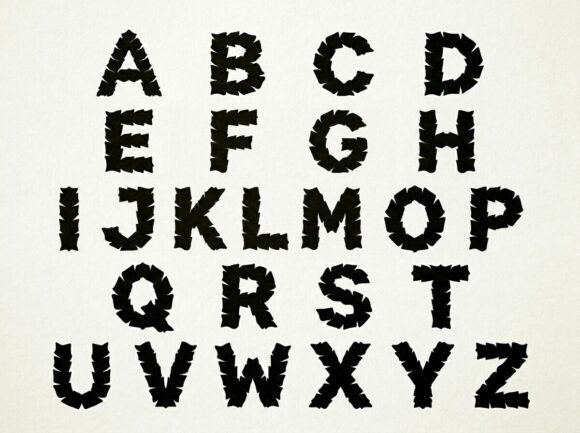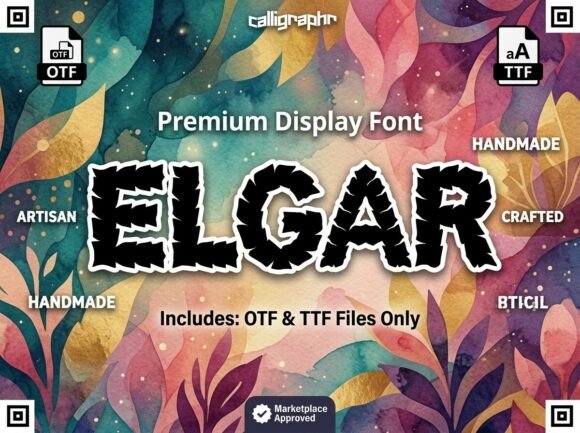
The Elgar Font: A Stunning Decorative Display Font for Creative Minds
Have you ever been working on a design project, pouring your heart and soul into it, only to hit a roadblock when it comes to choosing the perfect font? I know I have. It’s like being stuck on a creative mountain, unable to find the right words to express your vision. But fear not, dear designers, crafters, and creative hobbyists, for today I’m excited to share with you a game-changing font that will elevate your designs to new heights: the Elgar Font.
A Personal Encounter with Elgar
I recall working on a project for a client who wanted a bold, eye-catching logo that would make their brand stand out. I scoured the internet for the perfect font, but nothing seemed quite right. That was until I stumbled upon the Elgar Font. Its unique artistic elements and strong visual personality immediately caught my attention. I knew right then and there that this font was the perfect fit for my client’s project.
An Honest Review of Elgar
So, what makes the Elgar Font so special? Let’s dive into the good stuff:
- ✨ Unique Artistic Elements: The Elgar Font boasts stunning decorative elements that will make your designs pop.
- ✅ Professional and Polished Finish: Despite its bold and artistic nature, the Elgar Font maintains a professional and polished finish, making it perfect for a wide range of design applications.
- 💥 Versatility: This font is versatile enough for bold headlines, artistic logos, and creative packaging.
Now, let’s talk about a few quirks:
- ⚠️ ALL-CAPS Only: The Elgar Font is an ALL-CAPS display typeface, which means it doesn’t include lowercase letters. This might take some getting used to, but trust me, it’s worth it.
- 🤔 Glyphs and Alternates: While the Elgar Font is stunning on its own, its true potential is unlocked when using OpenType features, glyphs, and stylistic alternates.
The Backstory of Elgar
The Elgar Font was inspired by the works of Edward Elgar, a renowned British composer known for his stunning orchestral pieces. The font’s designer aimed to capture the essence of Elgar’s music by creating a font that’s both bold and elegant. The result is a font that’s perfect for creative projects that require a touch of sophistication and artistry.
| Is the Elgar Font suitable for body text? | No, the Elgar Font is a display typeface designed for headlines, logos, and decorative initials. |
| Does the Elgar Font include glyphs and alternates? | Yes, the Elgar Font includes a range of glyphs and stylistic alternates that can be accessed using OpenType features. |